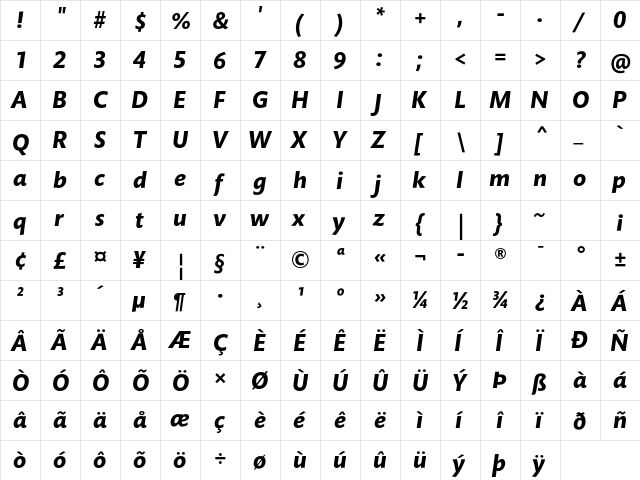
Mundo Sans Std Bold Italic
Design Context for Mundo Sans Std Typeface
Mundo Sans Std is a composed and adaptable typeface that performs quietly and consistently across a wide range of design contexts. Its italic angle brings a sense of urgency and motion to the letterforms. Its bold stroke weight gives it real presence on the page.
Pro Tip: Try Mundo Sans Std for annotation and caption copy alongside an upright companion — the contrast in angle creates a dynamic but ordered typographic system.